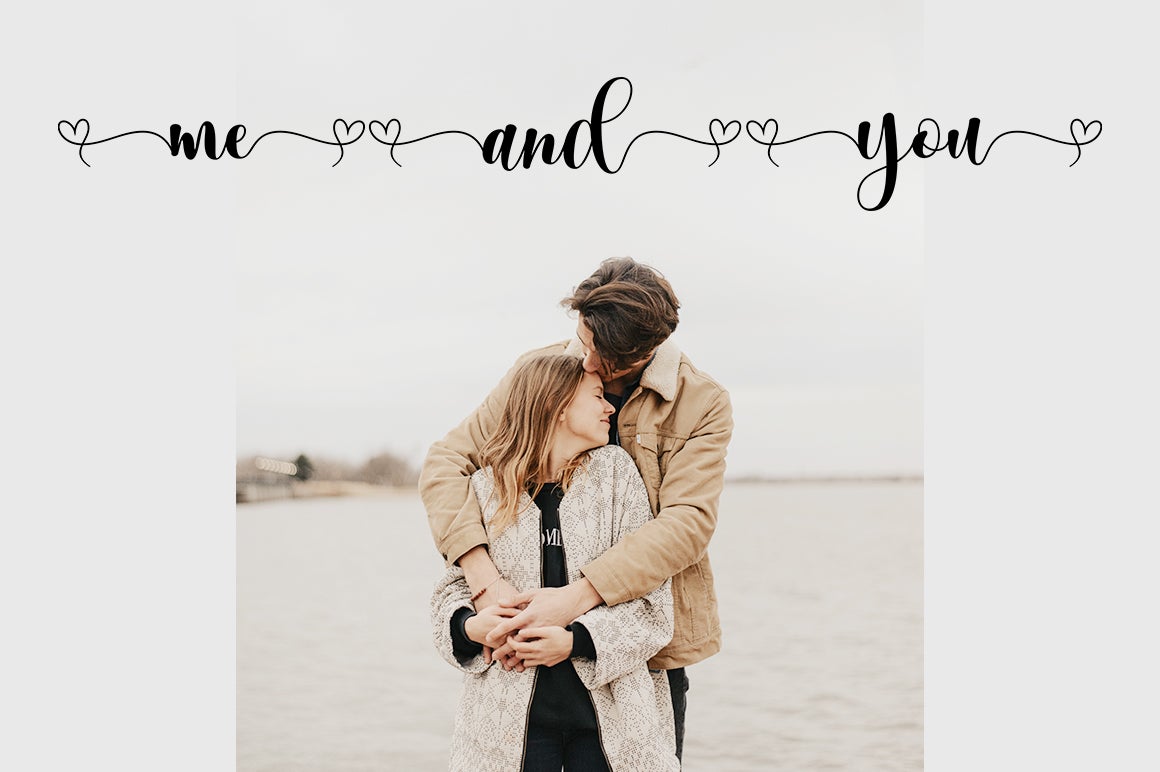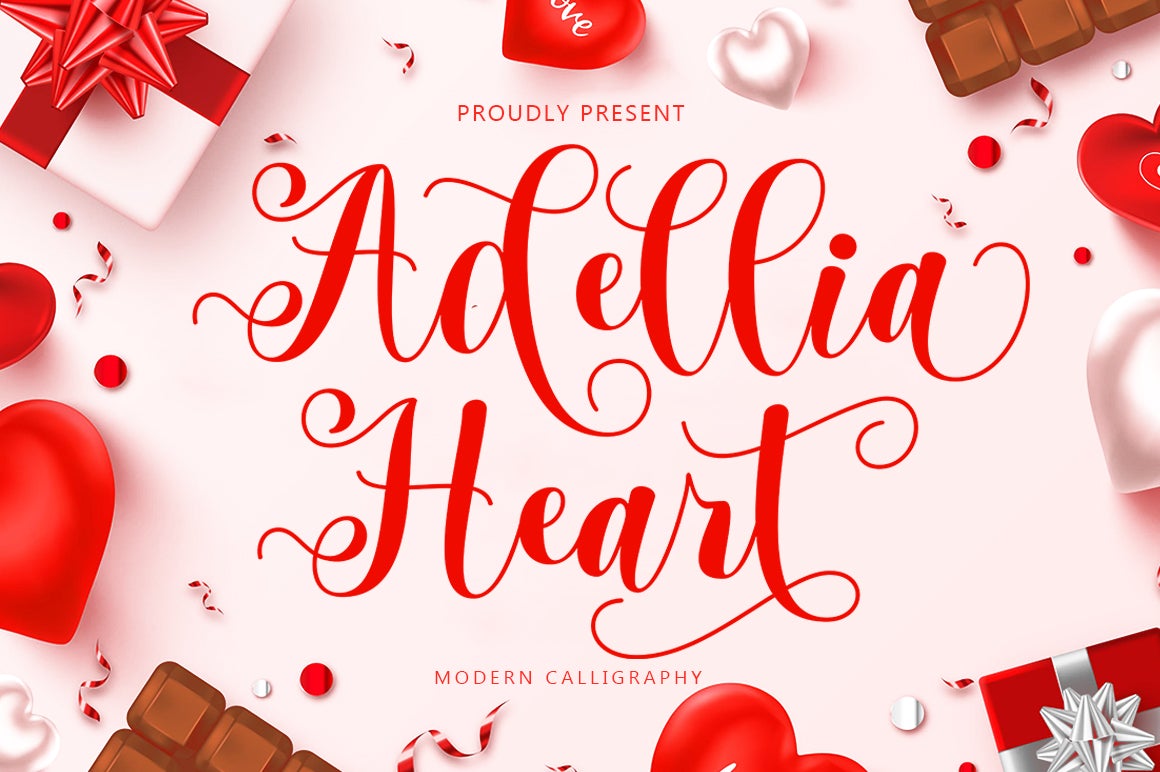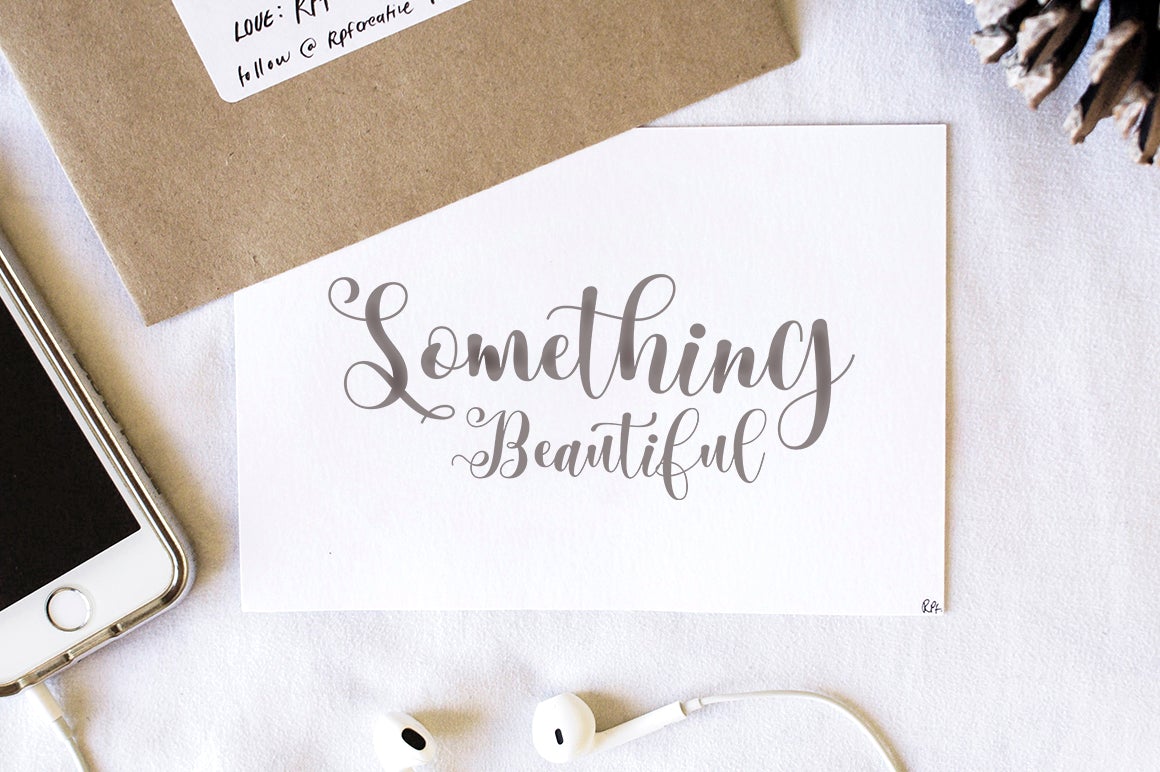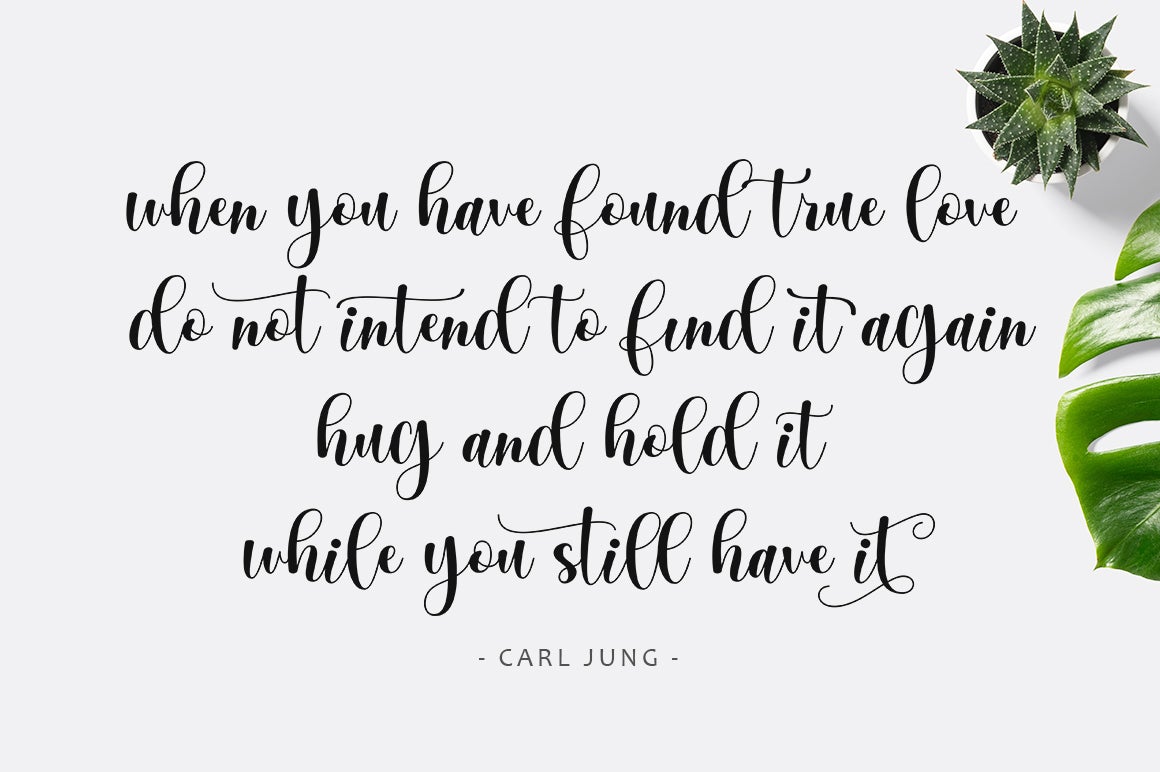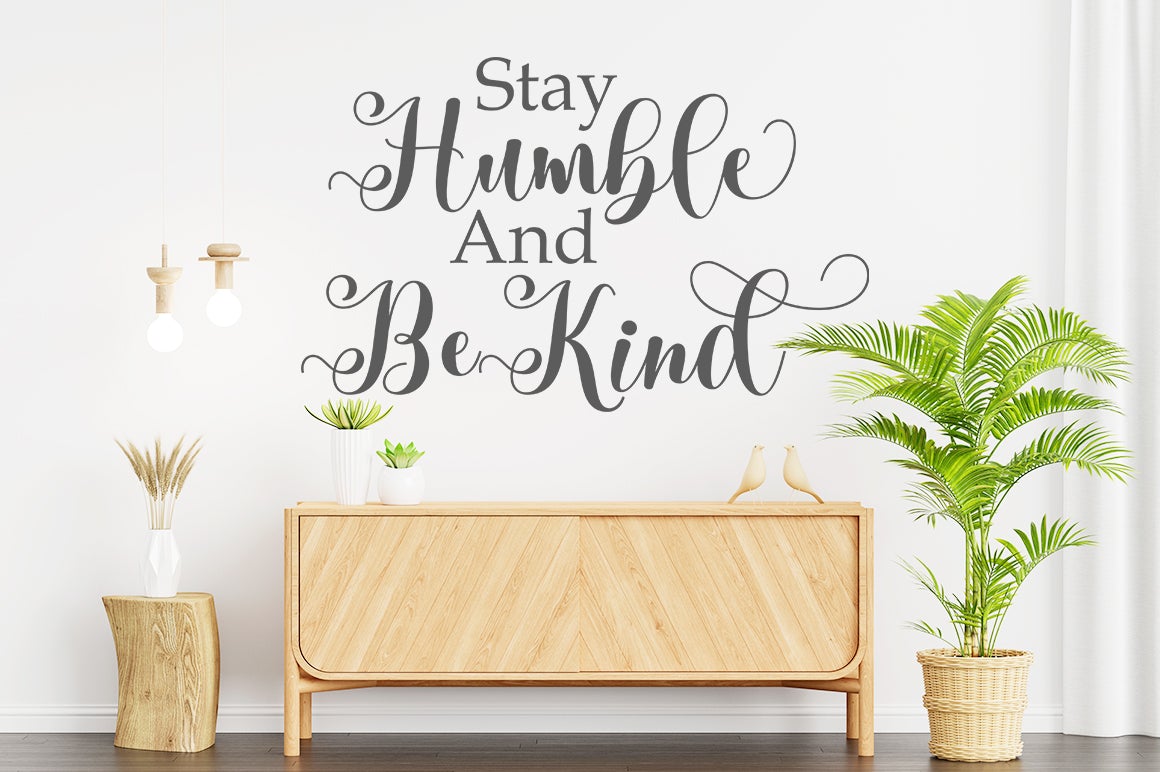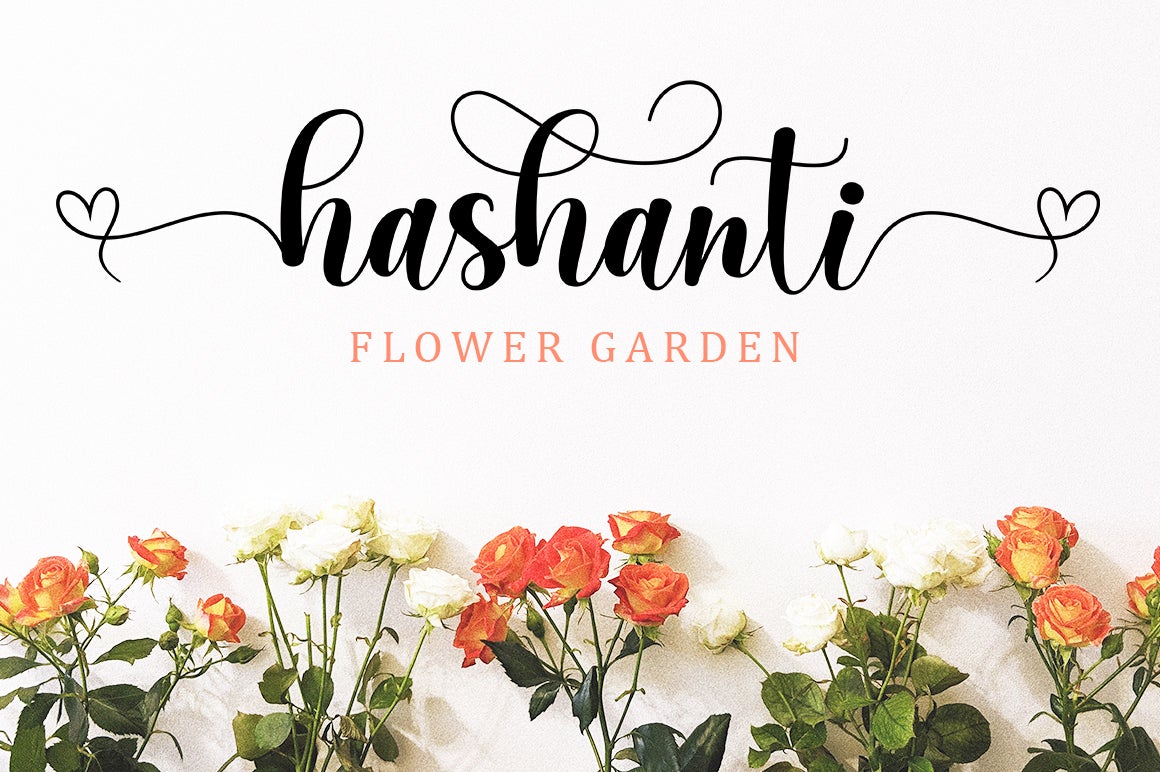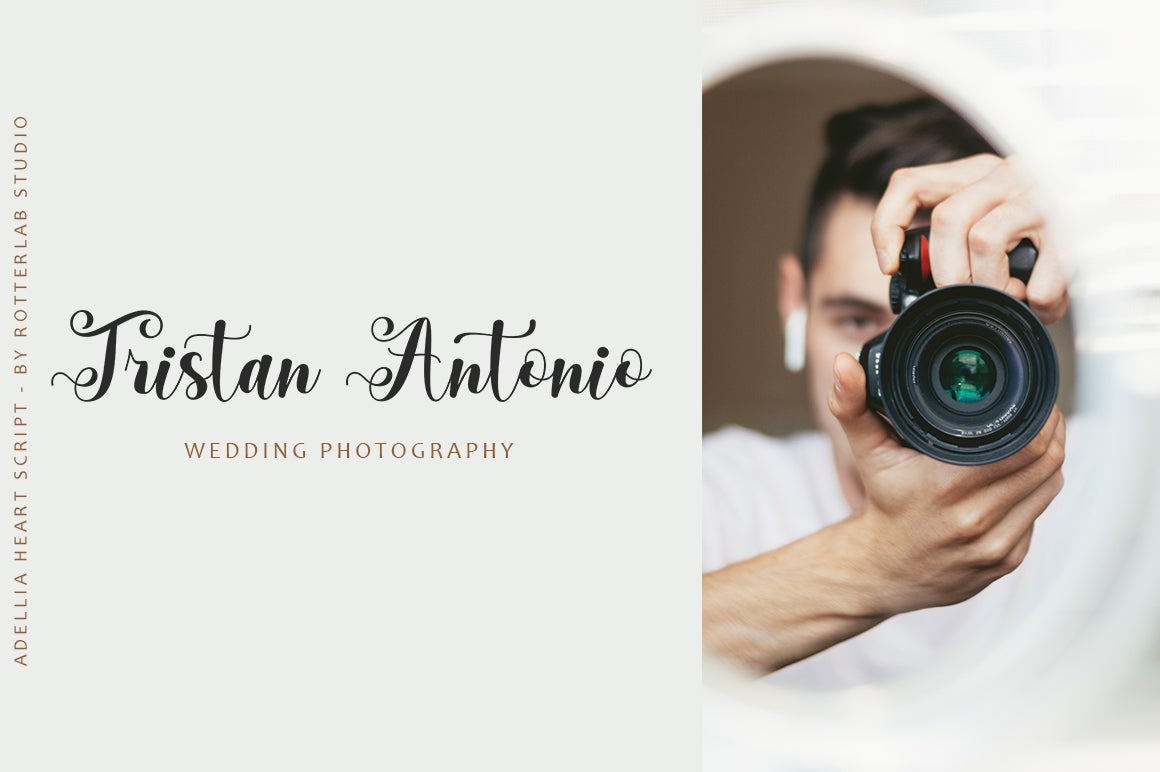
Adellia Heart
About Adellia Heart
Adellia Heart is a modern calligraphy font created especially for Spring. Adellia Heart is great for unique branding, photo overlays, watermarks, greeting cards, posters, business cards, invitations, weddings, photography, fashion, clothing, letters, stationery, etc. A wide variety of strokes (a-z), alternatives (a-z), binders, and multilingual support are included so you can give your logo or name a hand calligraphy look. This font is PUA encoded which means you can access all the glyphs and sweeps easily! FEATURE: Uppercase Lowercase Titles, Leagues & Swash Numbers & Punctuation Multilingual Support PUA coding open type INCLUDE FILES Adelia Heart OTF Adelia Heart TTF Thank You